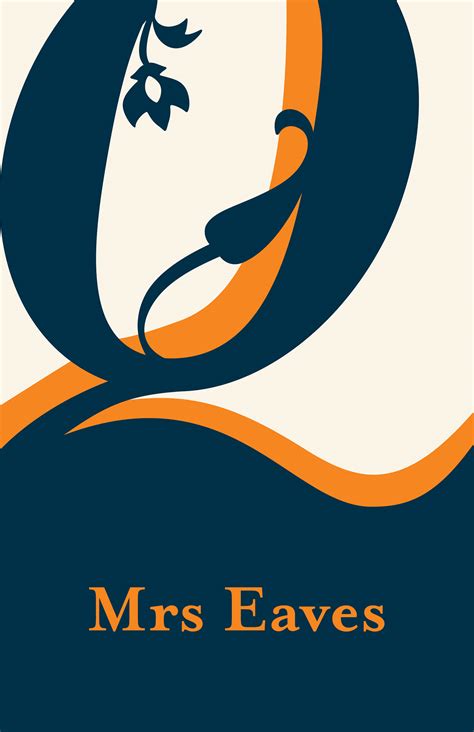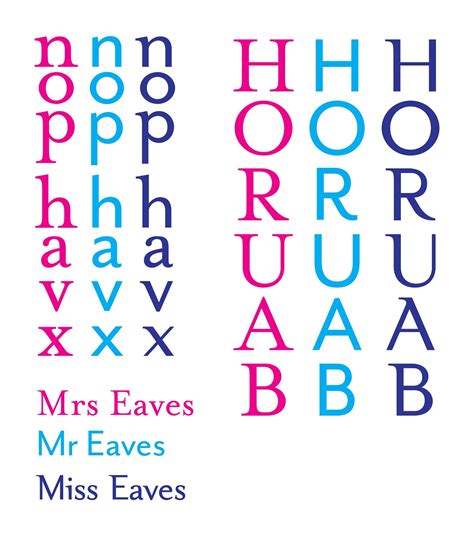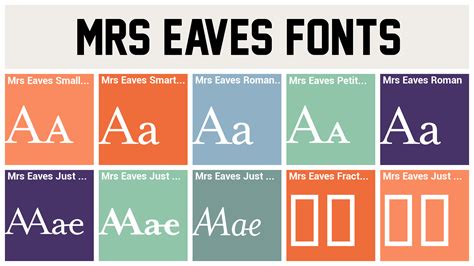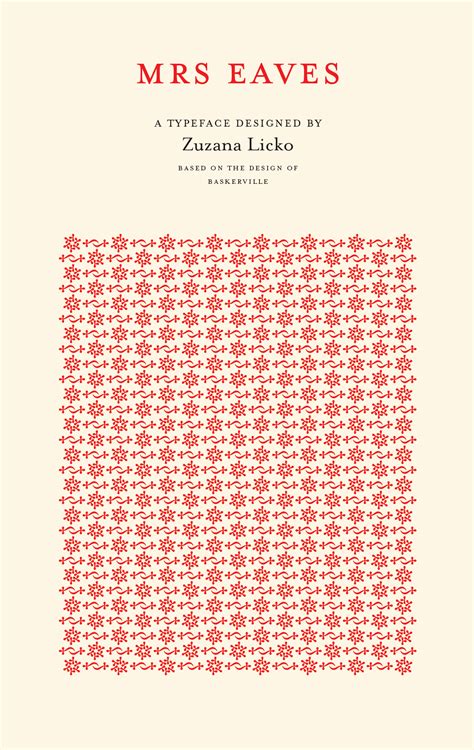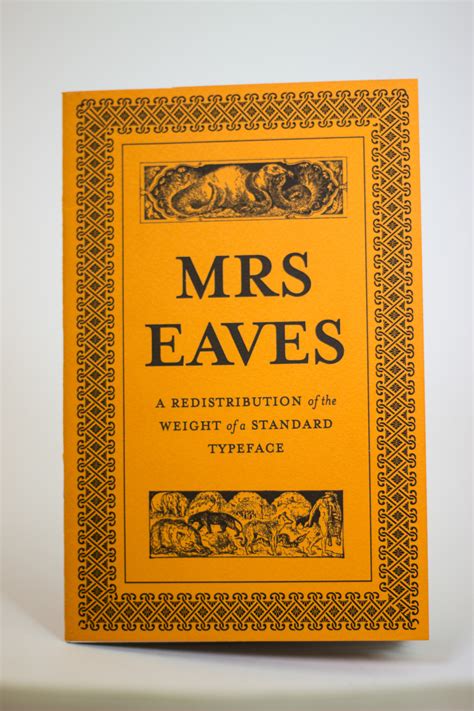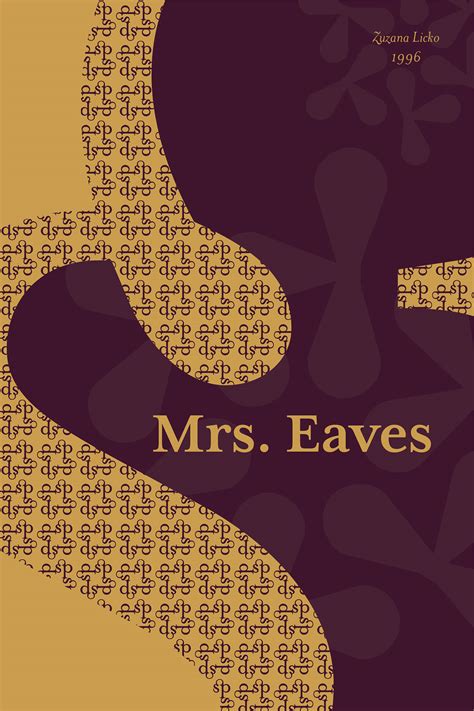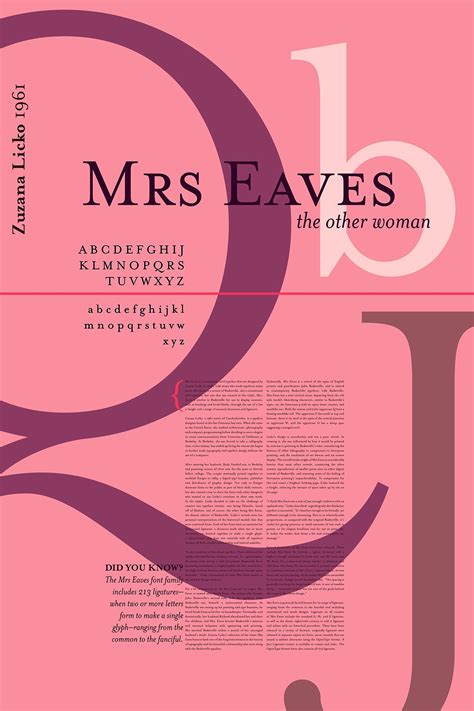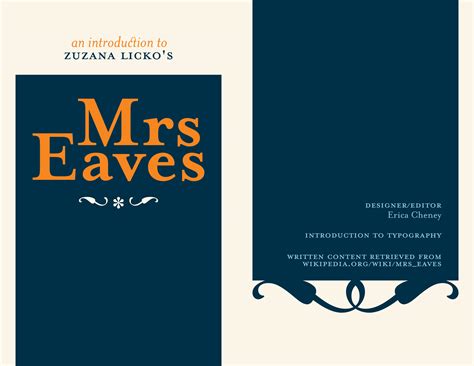
Mrs Eaves Font
Typography plays a crucial role in design, setting the tone and mood of any project. Among the myriad of fonts available, Mrs Eaves Font stands out as a timeless and elegant choice. Created by Zuzana Licko, Mrs Eaves Font is a revival of the classic Caslon typeface, infused with modern sensibilities. This font is not just a tool for designers but a statement of sophistication and refinement.
History and Inspiration
Mrs Eaves Font was designed in 1996 by Zuzana Licko, a renowned typographer and co-founder of the Emigre Fonts foundry. The font is named after Sarah Eaves, the wife of William Caslon, the original creator of the Caslon typeface. Licko's inspiration came from her admiration for the Caslon typeface, which was widely used in the 18th century. She sought to create a modern interpretation that retained the classic charm while adding contemporary flair.
Characteristics of Mrs Eaves Font
Mrs Eaves Font is characterized by its high contrast between thick and thin strokes, which is a hallmark of traditional Caslon fonts. However, Licko introduced several modern elements to make it more versatile for contemporary use. Some key characteristics include:
• High Contrast: The font features a strong contrast between thick and thin strokes, giving it a dynamic and elegant appearance.
• Modern Touch: While retaining the classic Caslon feel, Mrs Eaves Font includes modern touches such as slightly altered serifs and a more open letterform structure.
• Versatility: The font is highly versatile and can be used in a variety of design projects, from print to digital media.
• Legibility: Despite its ornate design, Mrs Eaves Font maintains excellent legibility, making it suitable for both body text and headlines.
Applications of Mrs Eaves Font
Mrs Eaves Font is a versatile typeface that can be used in a wide range of applications. Its elegant and timeless design makes it a popular choice for various design projects. Here are some common applications:
• Print Design: Mrs Eaves Font is often used in print media such as books, magazines, and brochures. Its high contrast and legibility make it ideal for long-form text.
• Branding: The font's classic yet modern appeal makes it a great choice for branding projects. It can be used in logos, business cards, and other branding materials to convey a sense of elegance and sophistication.
• Web Design: Mrs Eaves Font can also be used in web design to create a refined and professional look. Its versatility allows it to be used in both headers and body text.
• Invitations and Stationery: For special occasions, Mrs Eaves Font adds a touch of elegance to invitations, wedding stationery, and other formal documents.
Comparing Mrs Eaves Font with Other Classic Fonts
To better understand the unique qualities of Mrs Eaves Font, it's helpful to compare it with other classic fonts. Here is a comparison table:
Font Name Designer Year Created Characteristics
Mrs Eaves Zuzana Licko 1996 High contrast, modern touch, versatile, legible
Caslon William Caslon 1722 Classic, high contrast, traditional serifs
Garamond Claude Garamond 1530 Elegant, low contrast, classic serifs
Bodoni Giambattista Bodoni 1790 High contrast, dramatic, modern serifs
As seen in the table, Mrs Eaves Font stands out for its modern interpretation of the classic Caslon typeface. While it retains the high contrast and elegance of Caslon, it also includes modern touches that make it more versatile for contemporary use.
Tips for Using Mrs Eaves Font
To make the most of Mrs Eaves Font in your design projects, consider the following tips:
• Pairing: Mrs Eaves Font pairs well with sans-serif fonts for a modern contrast. Consider using it alongside fonts like Helvetica or Arial for a balanced look.
• Size and Spacing: Due to its high contrast, Mrs Eaves Font can be challenging to read at very small sizes. Ensure that the font size is large enough for legibility, and adjust the line spacing as needed.
• Color: The font's elegant design works well with a variety of colors. However, it is particularly effective when used with muted or pastel tones that complement its classic appeal.
• Consistency: Maintain consistency in your use of Mrs Eaves Font. Avoid switching between different fonts within the same project to ensure a cohesive and professional look.
Mrs Eaves Font in Modern Design
Despite being created in the mid-1990s, Mrs Eaves Font continues to be a popular choice in modern design. Its timeless elegance and versatility make it a go-to font for designers looking to add a touch of sophistication to their projects. Whether used in print or digital media, Mrs Eaves Font remains a classic choice that stands the test of time.
One of the reasons Mrs Eaves Font has endured is its ability to adapt to various design trends. Its high contrast and modern touches make it suitable for both traditional and contemporary design styles. Whether used in a minimalist layout or a more ornate design, Mrs Eaves Font adds a layer of elegance that elevates the overall aesthetic.